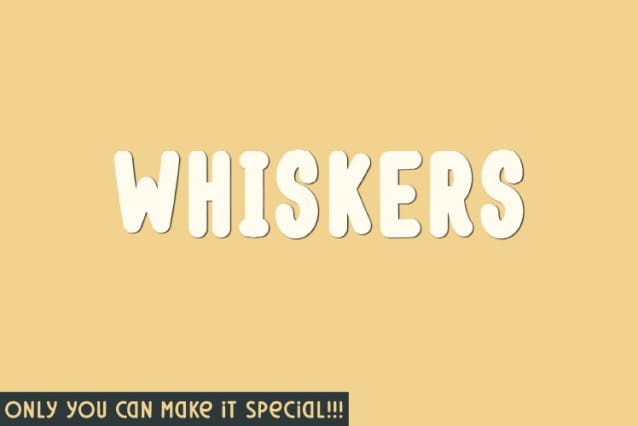
Whiskers Display Font
Whiskers Display feels playfully nostalgic and delivers an incredible vintage aesthetic. Use this serif font to add that special retro touch to any design idea you can think of!